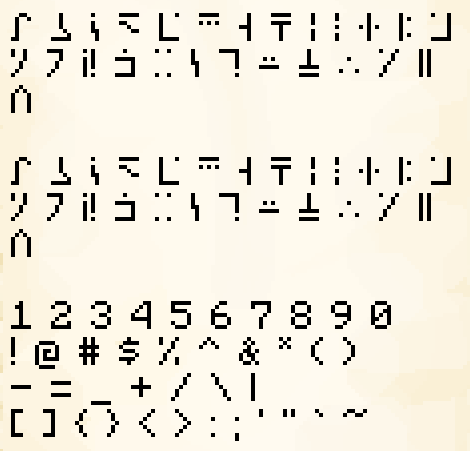
Its just Minecraft's font, but replacing the Latin alphabet with Minecraft's version of the Standard Galactic alphabet from 'Commander Keen', also known as 'Enchanting Table language'.
The only thing this resource pack changes is the default alphabet.
Uppercase and lowercase letters are indistinguishable, they use the same symbols. All accented letters, numbers, symbols and unicode has been left as Minecraft's default font. This means that technically there are two verions of the SGA, the other being the actual unicode version. I was debating switching the unicode to English, just for the fun of it but didn't get around to doing it. If people like the idea of it I might add a version that does that though.
I made this since after looking around a bit, I realised that there wasn't a SGA font for modern Minecraft, and I wanted it for RP purposes. I wouldn't really recomend using this for no reason, you'd have to learn how to read SGA to use it at all, but it's a cool novelty if you put in the effort.